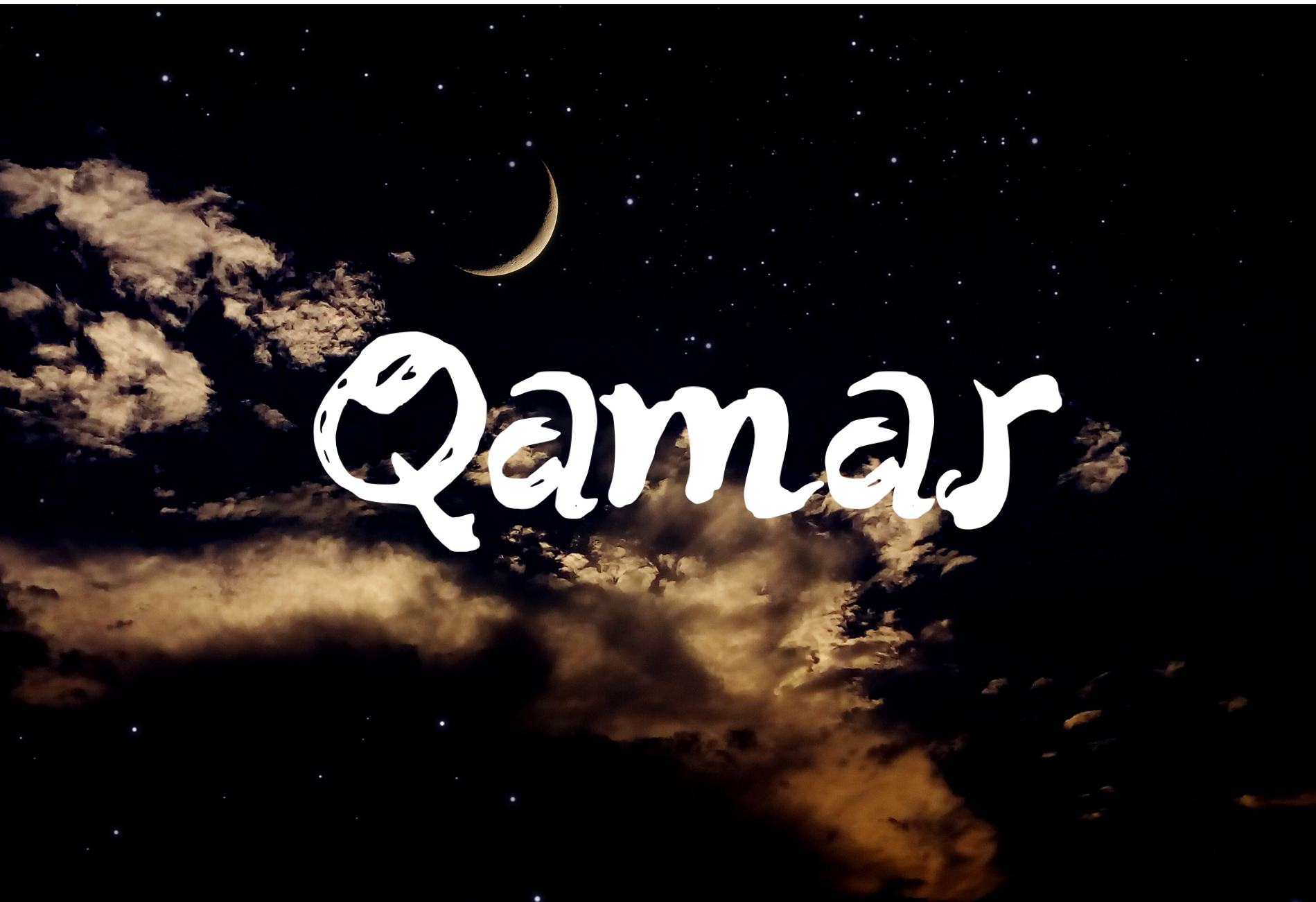
Qamar Handwritten Font
Qamar is a handwritten font. Ideal for logos, product packaging, header, poster, merchandise, social media.
Basic Latin A-Z and a-z Numbers Symbols